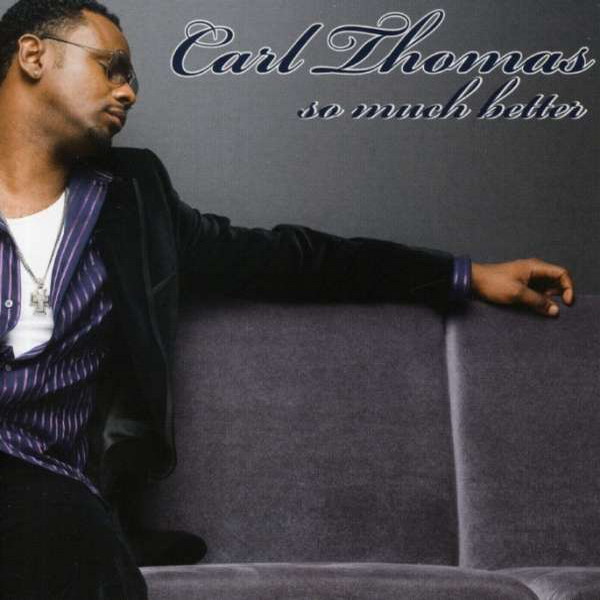
So Much Better Font
Fonts in UseSo Much Better is the third studio album by American R&B singer Carl Thomas, released in 2007. The album features a mix of soulful ballads and mid-tempo tracks showcasing Thomas's smooth vocals and songwriting abilities.
The album's cover lettering resembles Bickham Script Pro Regular, a commercial typeface by Richard Lipton based on George Bickman's 18th-century handwriting. You may find more details here.